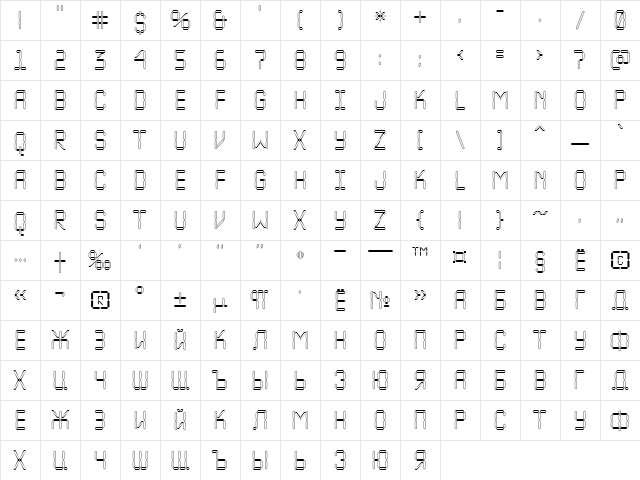
a_LCDNovaOtl Regular Free Font
a_LCDNovaOtl Regular
Design Context for a_LCDNovaOtl
a_LCDNovaOtl is a composed and adaptable typeface that performs quietly and consistently across a wide range of design contexts.